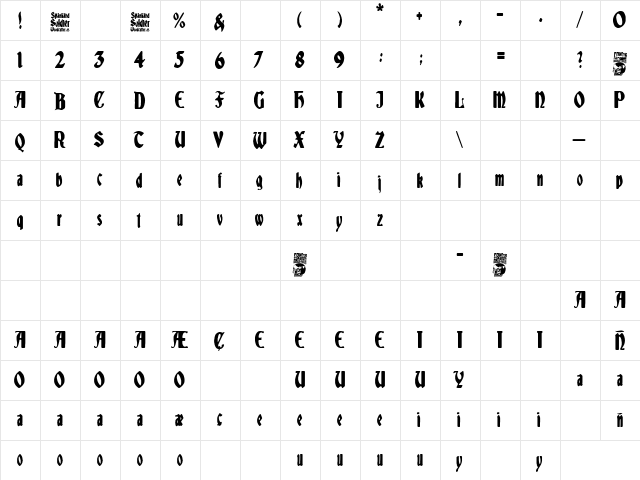
Spaniard Soldier Regular
| Designer | Woodcutter Manero |
Design Context for Spaniard Soldier Typeface
Spaniard Soldier draws on military and industrial lettering traditions, with forms that communicate strength and precision.
Designed for tactical branding, military-inspired apparel, action game UI, and utility-focused signage.
Font Pairing: Use alongside a condensed or geometric sans for supporting copy — keep the pairing bold, functional, and free of ornament.
Pro Tip: Use Spaniard Soldier at medium-to-large sizes where its utilitarian structure can be appreciated — the character detail gets lost at small sizes.